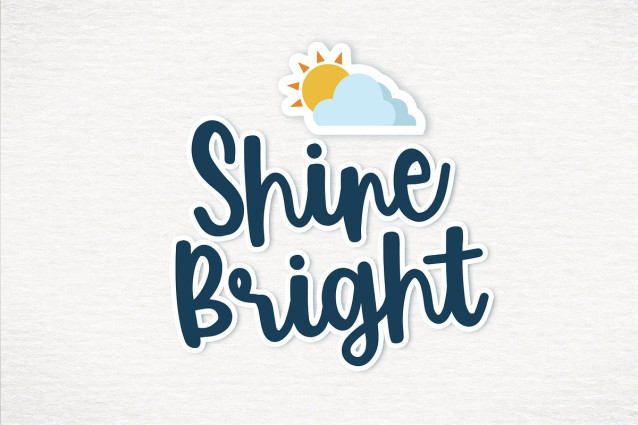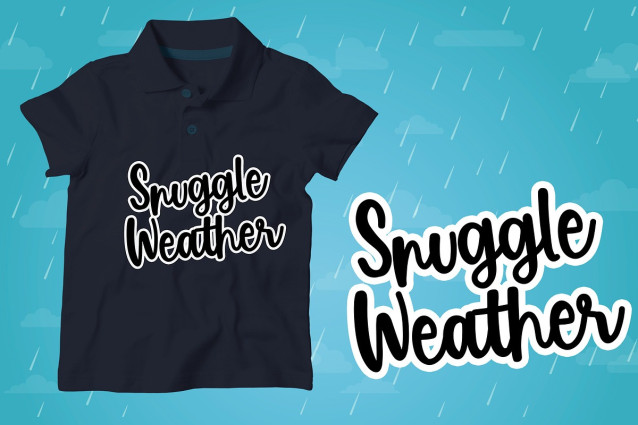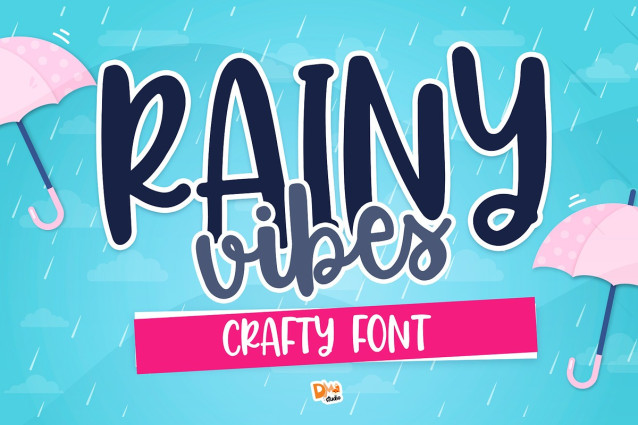
Rainy Vibes Font
Rainy Vibes Font is a cute, crafty and friendly handwritten font. Rainy Vibes Crafty Handwritten font versatile for many purposes, great for quotes, social media posts, DIY crafts, brands, logo, sticker, home decoration etc.